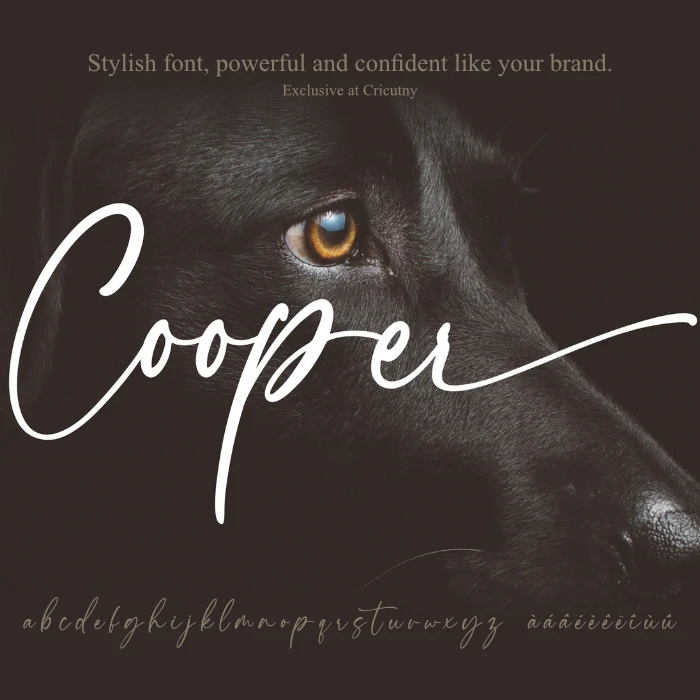
Signature Font
“Let your creativity flow and leave a personal touch with a font that mimics your handwriting, bringing your signature to life!”
Look no further for a signature font with tails that will inspire you. Thanks to its natural look with delicate lines, this font has been one of my most popular fonts on Etsy. Discover how it can elevate your project to the next level. The Cooper font was ranked among the top 10 signature fonts 8 months ago!
A signature font with pair letters. The Copper font is more than just a typeface – it’s a work of art that embodies creativity and passion. The pairing of letters in its design is a testament to the beauty that can be achieved when we push the boundaries of what’s possible.
For your convenience, the right and left tail letters are also included in SVG.
With the inclusion of French and Spanish accents (é,à,è,ê,ù,ç,ü,ñ …), this font adds a touch of refinement and class to any written work. Don’t settle for less – upgrade your writing with the Cooper signature font today! Hola a todos and Bonjour la France!